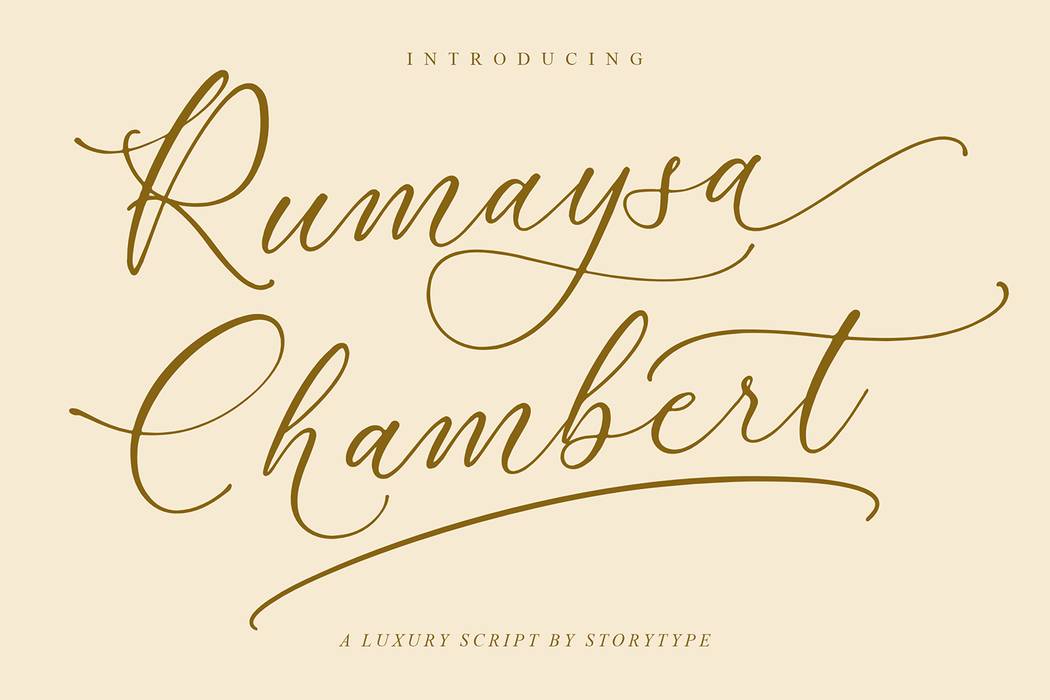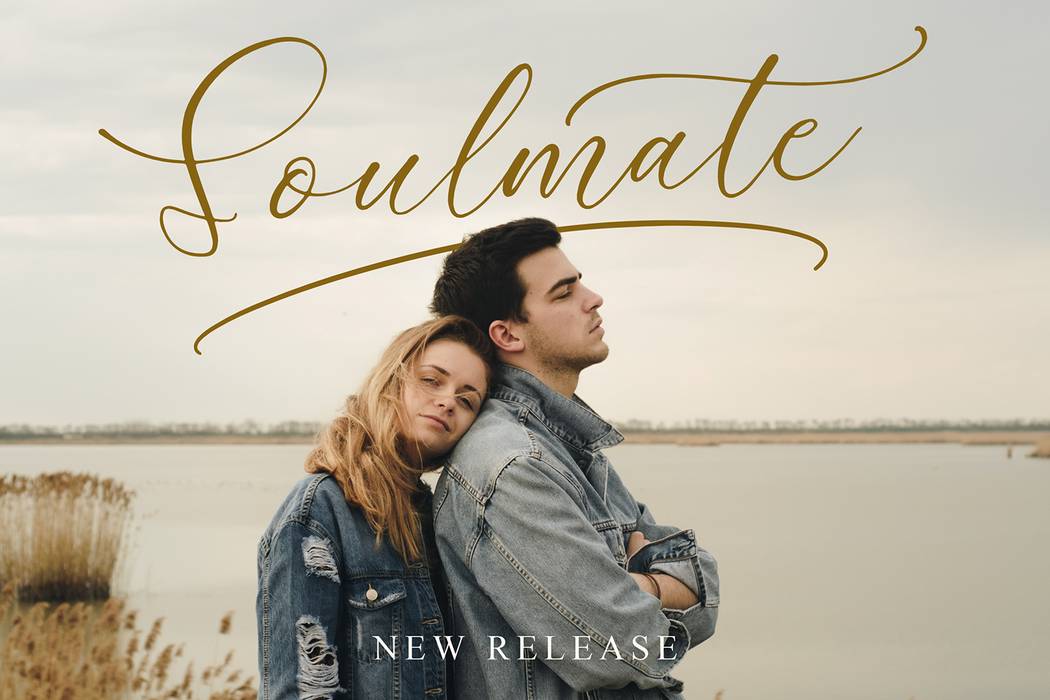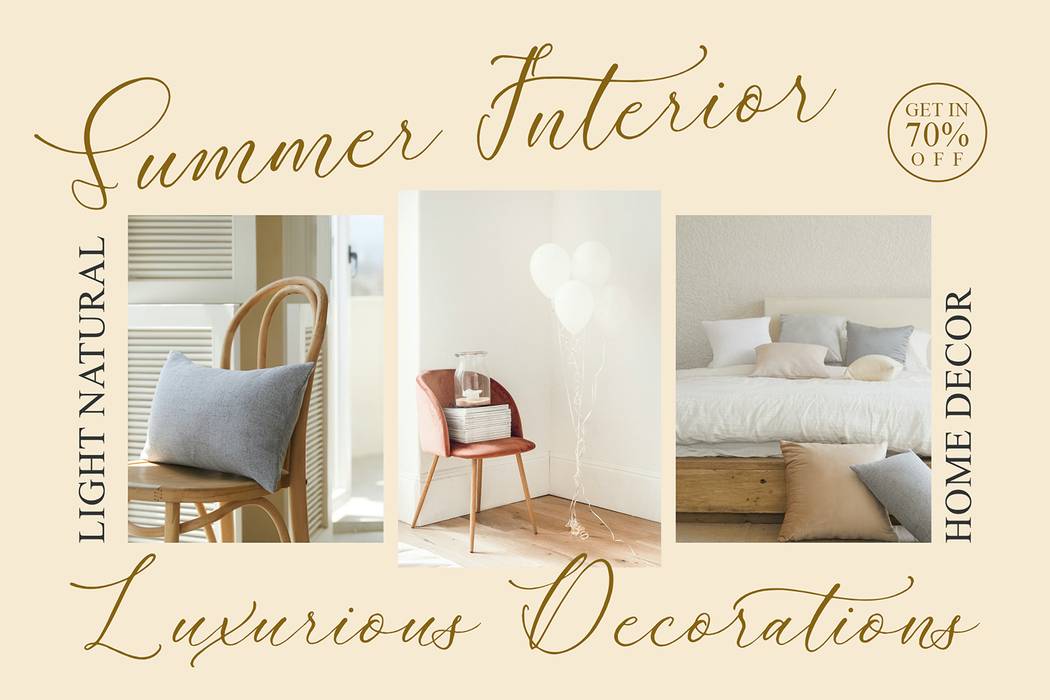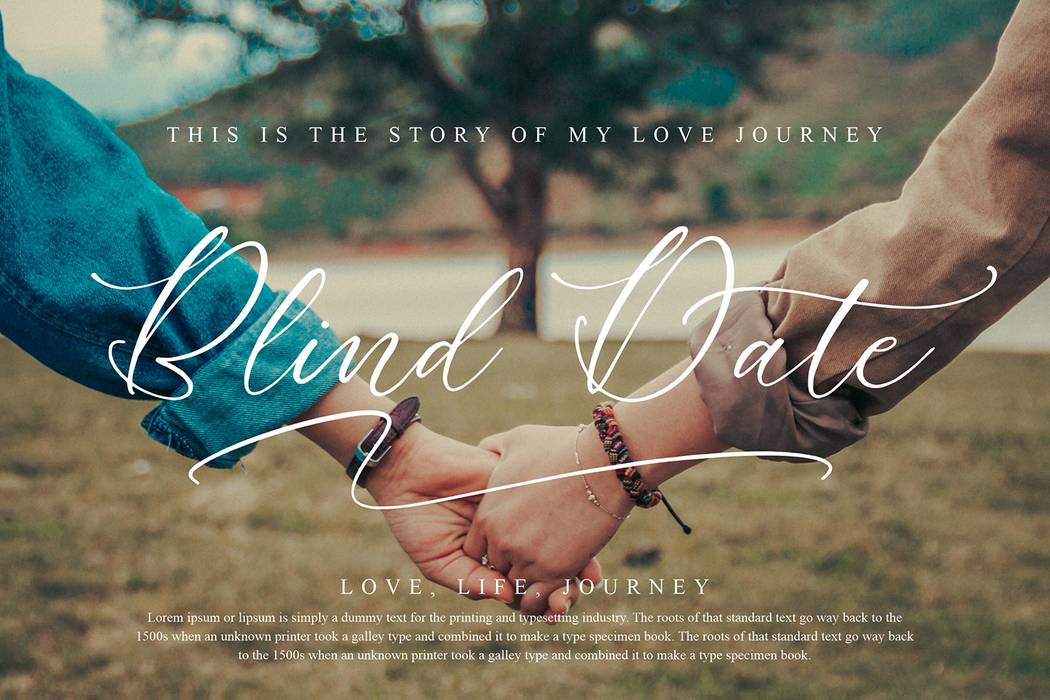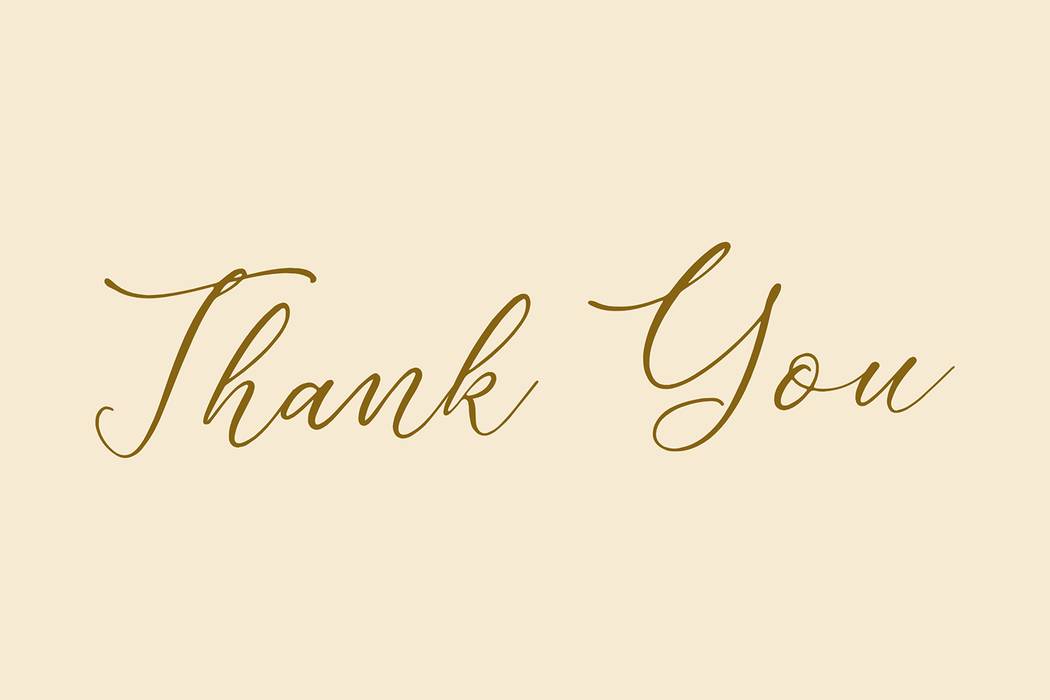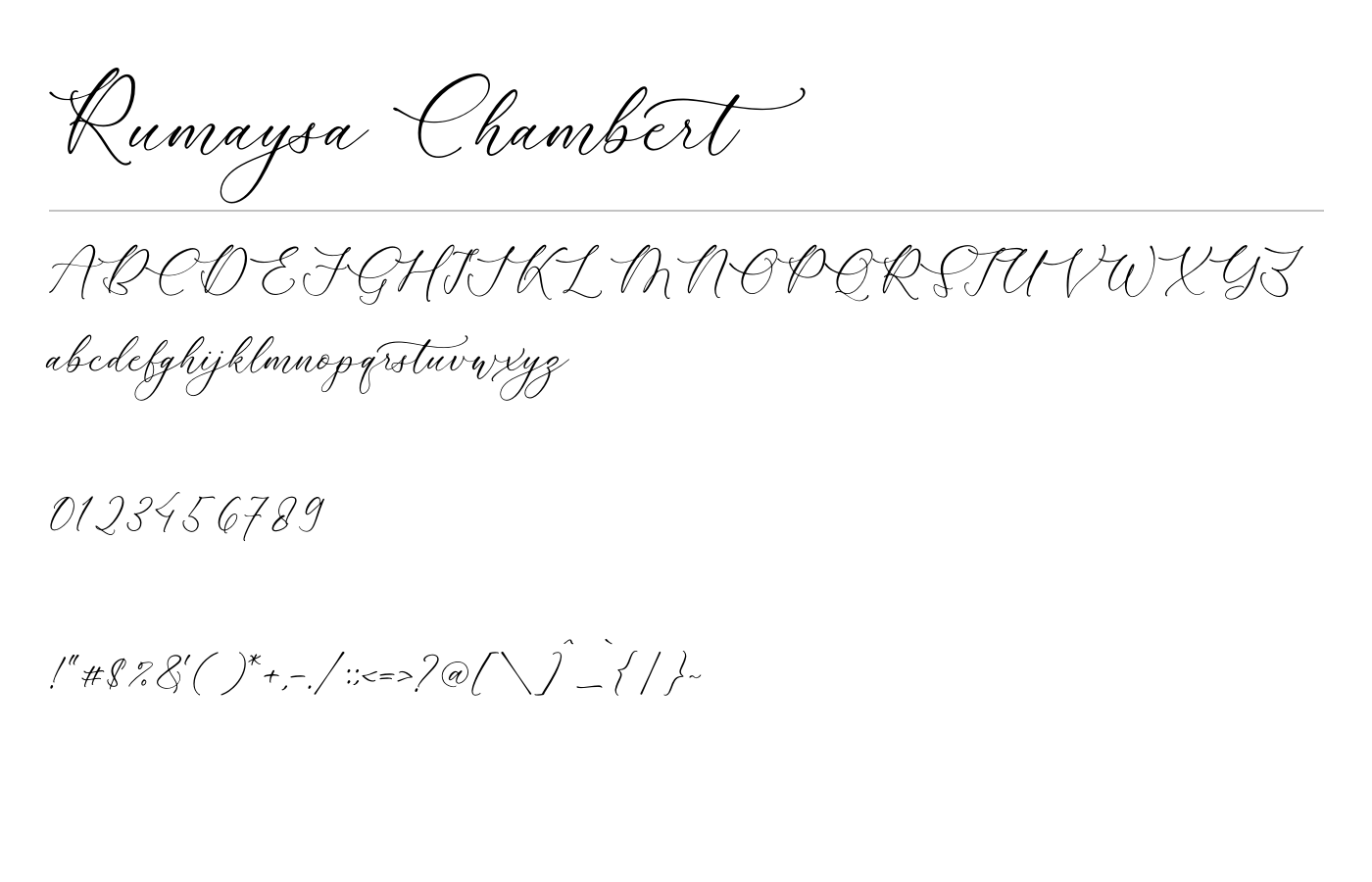
Rumaysa Chambert is a delicate, elegant script font with fine, flowing strokes that create a graceful and sophisticated feel. Its light weight and high contrast between thick and thin lines, along with intricate swashes and flourishes, make it ideal for luxury branding, wedding invitations, and upscale editorial projects. This font works best in large sizes, where its refined details can shine, conveying a sense of beauty and refinement.
Rumaysa Chambert Font
About Rumaysa Chambert Font